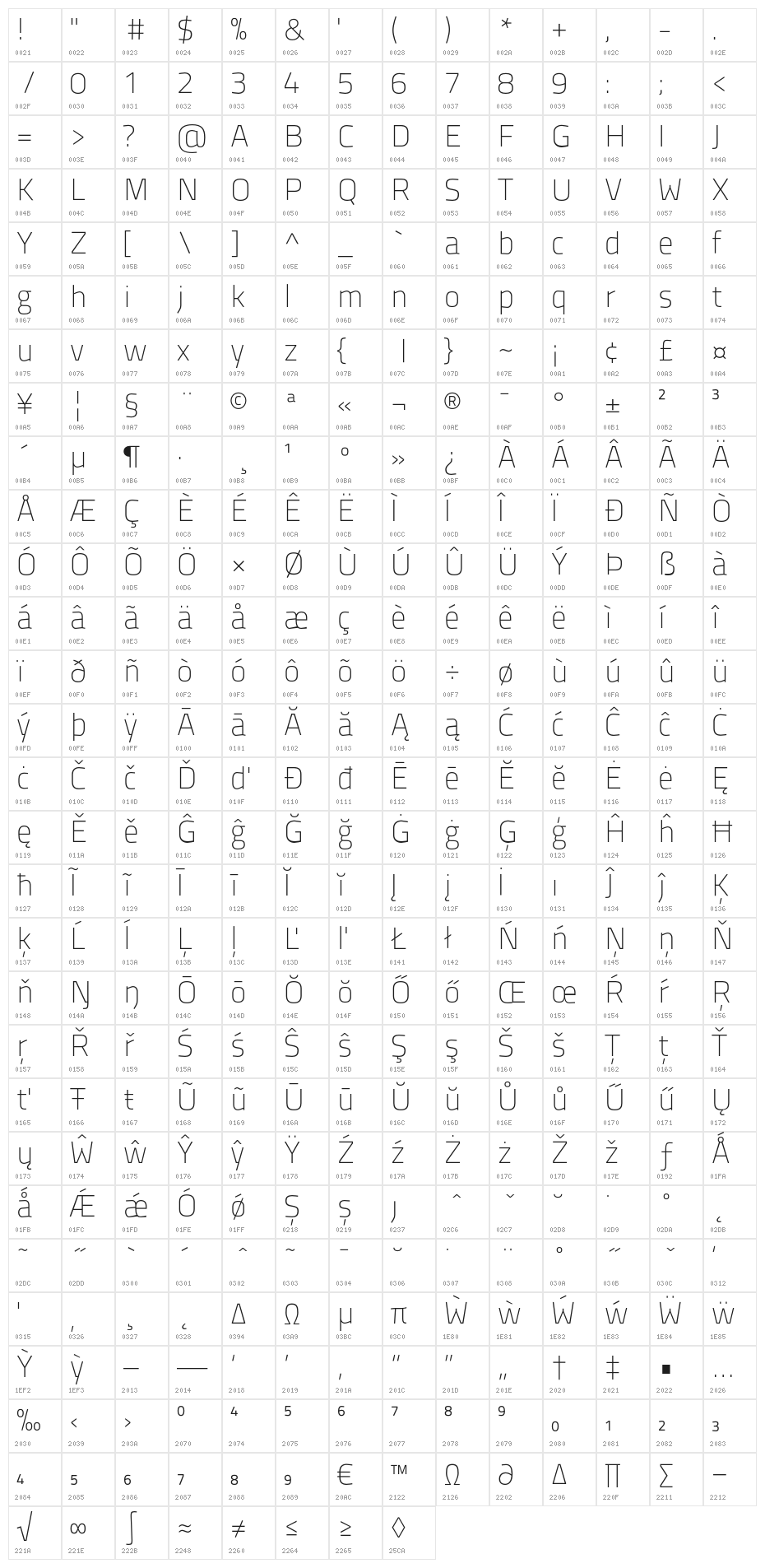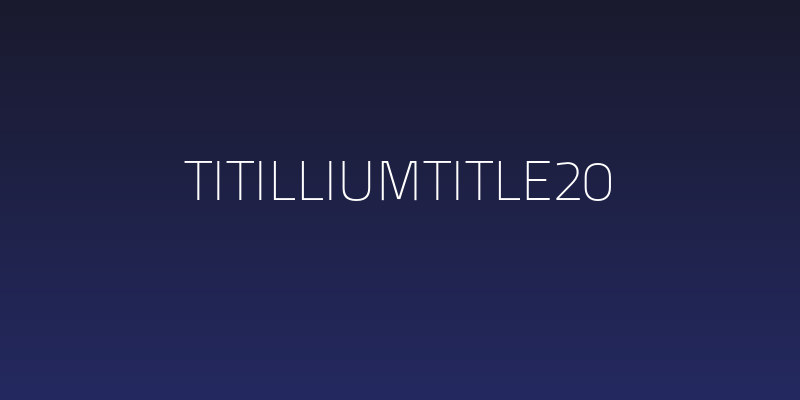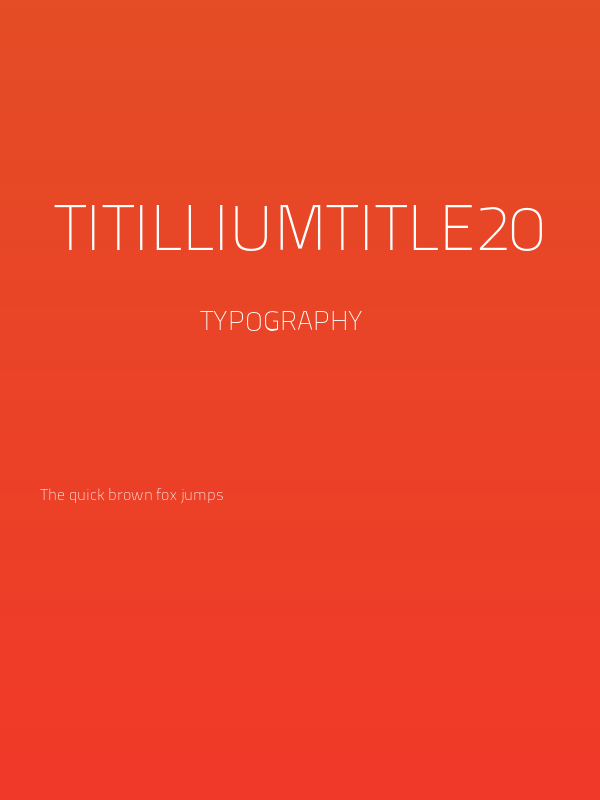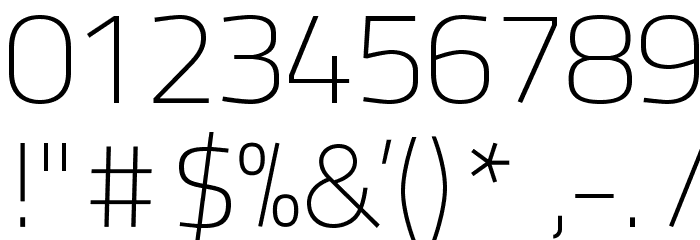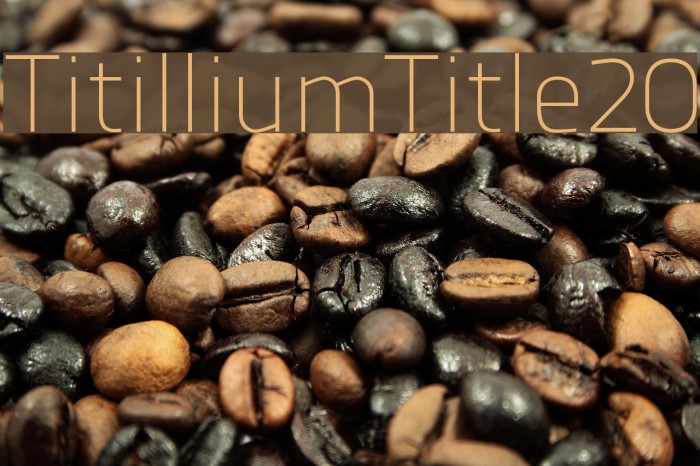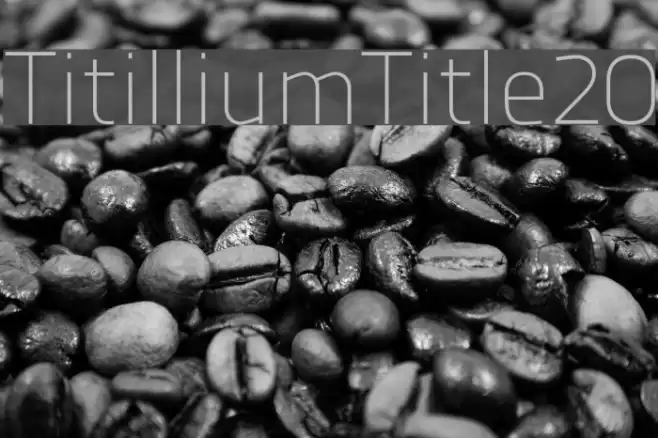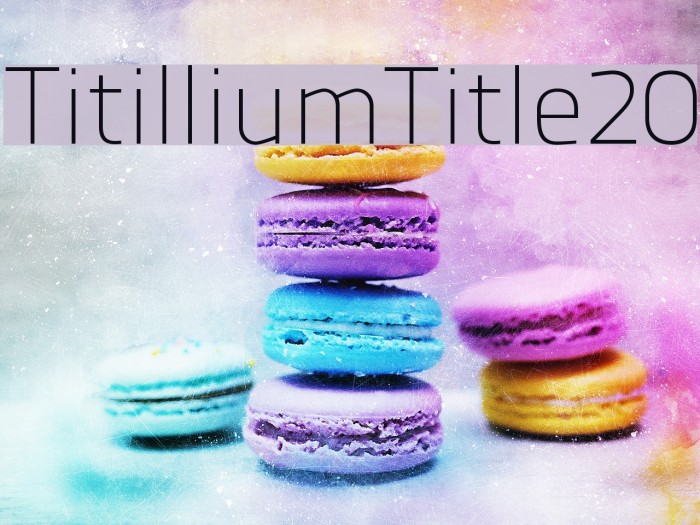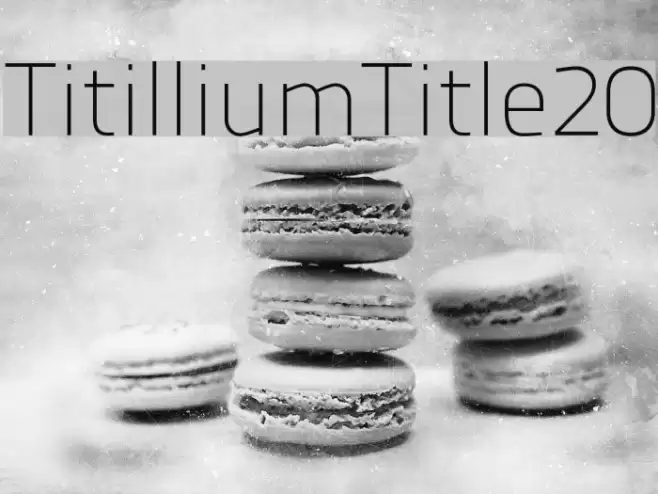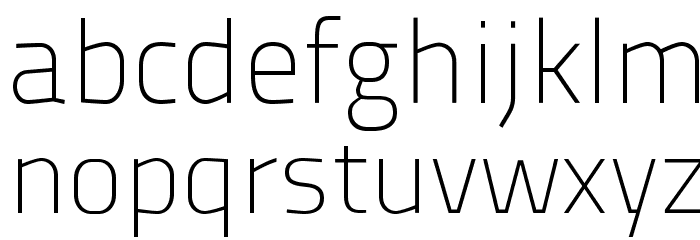
TitilliumTitle20 Font
TitilliumTitle20 Description
This font features a clean and modern sans-serif design with a geometric structure. The characters are evenly spaced, providing a balanced and harmonious appearance. The uppercase letters are tall and slightly condensed, while the lowercase letters maintain a consistent height, enhancing readability. The numerals are clear and distinct, making them suitable for various applications. The special characters are well-defined, adding versatility to the font's use. Overall, this font exudes a contemporary and professional feel, ideal for digital and print media.
| Use Case | Headlines, Body text, Logos |
| Proposed Projects | Ideal for web design, corporate branding, editorial layouts, and user interfaces. |